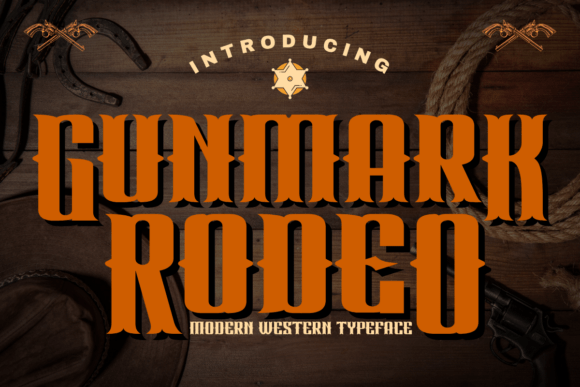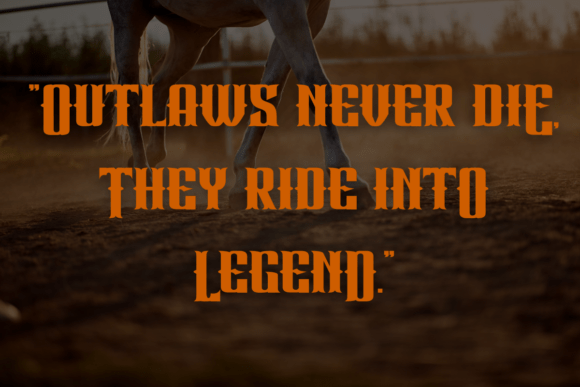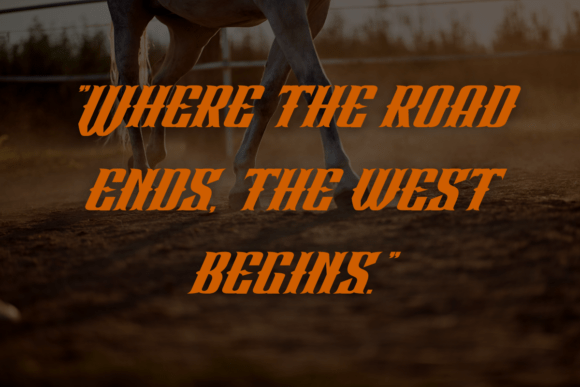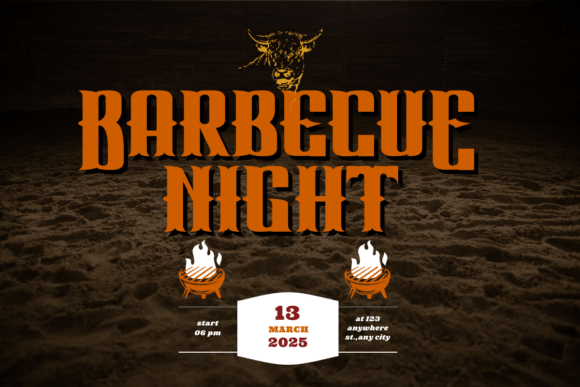
Gunmark Rodeo Font
About the Gunmark Rodeo Font
Let us introduce you to Gunmark Rodeo Font, where timeless design meets modern craftsmanship. Gunmark Rodeo is a bold and aesthetics modern western typeface inspired by vintage cowboy aesthetics, making it perfect for western-themed crafts, retro signage, country branding, rodeo posters, t-shirt designs, drink labels, and rustic logos. This strong serif font features sharp ornamental details that capture the wild west spirit, ideal for crafters, designers, and POD creators looking for a standout western font, cowboy font, vintage font, bold display typeface.
Gunmark Rodeo thrives in large display applications such as headlines, posters, and logos where its bold strokes and western character make a strong statement. It’s also well-suited for packaging and branding projects requiring a vintage or rustic feel. However, its strong serifs and decorative elements make it less suitable for body text or UI elements where readability is paramount. Avoid using it for long paragraphs or small sizes.
For optimal pairings, consider complementing Gunmark Rodeo’s boldness with a clean, neutral sans-serif like Open Sans or Lato for body text. Alternatively, a classic serif like Garamond or a more modern geometric sans-serif such as Montserrat can provide a sophisticated contrast. Pairing it with a script font should be approached cautiously, selecting a script with similar weight and a less ornate style to avoid visual clutter.
The overall personality of Gunmark Rodeo is bold, assertive, and undeniably western. It projects a sense of rugged individualism and vintage charm, ideal for brands emphasizing authenticity, heritage, or a rebellious spirit within the western or country aesthetic.
Gunmark Rodeo Font Example